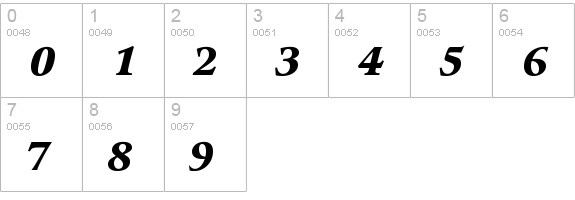
Guardi 96 Black Italic is a maximum-weight, dramatic, italic variant in the Guardi typeface family \xE2\x80\x94 well suited to maximum-impact headlines, posters, and packaging.
Guardi 96 Black Italic is a sleek and modern typeface that exudes sophistication and elegance. Its bold and italic design adds a touch of flair to any project, making it perfect for headlines, titles, and branding materials. The sharp serifs and clean lines of this font give it a professional and polished look that commands attention. What sets Guardi 96 Black Italic apart is that it is available for free download at FontsMarket.com. This means that you can easily access and use this stylish font in your design projects without any cost. Whether you are creating a website, a poster, or a logo, Guardi 96 Black Italic will elevate your design and make a lasting impression on your audience. Don't miss out on the opportunity to enhance your typography with Guardi 96 Black Italic. Download it for free today and add a touch of sophistication to your designs.